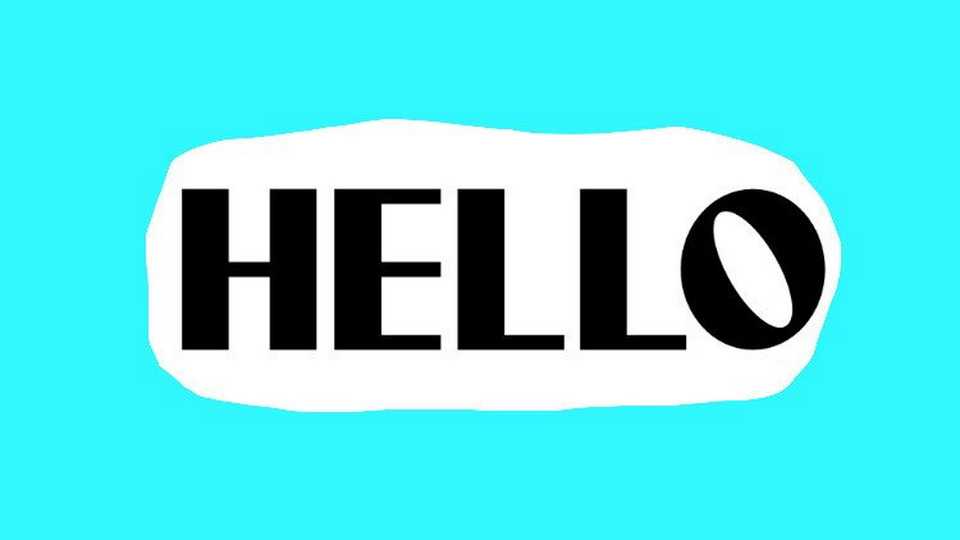
Download Hello font, a simple and clean high contrast sans serif typeface. Hello is suitable for a company logo, studio branding, headline, magazine cover, and other creative ideas.